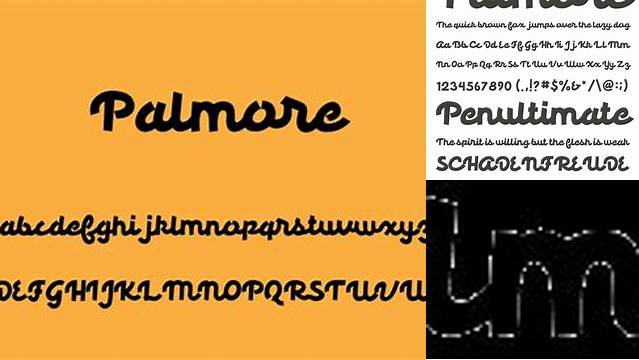
H2: Understanding Palmore Font: What Makes It Special?
Palmore Font is a typeface that's become increasingly popular in the design world. Its unique blend of elegance and readability makes it a go-to choice for designers looking to create visually appealing content. But what exactly makes Palmore Font so special? Well, let's break it down. First off, the design itself is a key factor. Palmore Font often features a clean, modern aesthetic with a touch of sophistication. Its letterforms are usually well-defined, making it easy to read both at large and small sizes. This versatility is one of its major strengths. Palmore is often used for various purposes. The visual appeal of a font is also essential. It has a distinctive personality that can range from slightly bold to delicate, allowing it to fit a broad spectrum of design projects. This adaptability makes it suitable for everything from headlines and logos to body text and editorial layouts. The nuances in its design, like the curve of a specific letter or the spacing between characters, are carefully considered to create a harmonious and balanced appearance. Furthermore, Palmore Font is often praised for its legibility. In today's fast-paced world, where content consumption happens across multiple devices and platforms, the ability to read text quickly and comfortably is paramount. Palmore Font meets this need with its well-defined characters and spacing, ensuring that your message is communicated clearly, regardless of the medium. The characteristics of Palmore Font include its adaptability, visual appeal, and legibility. Also, it has a distinctive personality.
Palmore Font's adaptability makes it suitable for everything from headlines and logos to body text and editorial layouts. The nuances in its design, like the curve of a specific letter or the spacing between characters, are carefully considered to create a harmonious and balanced appearance. Palmore Font is often praised for its legibility. The characteristics of Palmore Font include its adaptability, visual appeal, and legibility. This will ensure your message is communicated clearly. Palmore is a typeface that's become increasingly popular in the design world. Its unique blend of elegance and readability makes it a go-to choice for designers looking to create visually appealing content. Its letterforms are usually well-defined, making it easy to read both at large and small sizes. This versatility is one of its major strengths. The visual appeal of a font is also essential. It has a distinctive personality that can range from slightly bold to delicate, allowing it to fit a broad spectrum of design projects.
H3: Palmore Font's Design and Aesthetics
When we dive deeper into the design of Palmore Font, you'll find that it's not just a font; it's a work of art. The creators of this font have paid meticulous attention to every detail, resulting in a typeface that is both visually stunning and highly functional. The aesthetics of Palmore Font are rooted in a blend of modern and classic design principles. The font's design often features clean lines, balanced proportions, and a sophisticated overall look. This means that each character is carefully crafted to harmonize with the others, creating a cohesive and pleasing visual experience. The choice of design elements, such as the curves, angles, and weight of each letter, contributes to the font's unique personality. One of the key elements of Palmore Font's aesthetics is its legibility. The font designers understand that the primary purpose of a typeface is to communicate effectively. So, every aspect of the font, from the height of the ascenders and descenders to the spacing between letters, is optimized for ease of reading. This makes Palmore Font an excellent choice for both display and body text. The font is designed to be visually engaging without being overwhelming, allowing the content to shine through. Another aspect of Palmore Font's design is its versatility. It can be adapted to various design projects, from branding and marketing materials to website design and print publications. Its clean and modern aesthetic makes it suitable for a wide range of contexts, while its sophisticated touch adds a touch of elegance. Palmore Font often comes in different weights and styles, adding to its versatility. You can find variations that are bold, italic, or condensed, allowing you to customize the font to match your design's needs. This flexibility makes Palmore Font a valuable asset for any designer. The attention to detail, legibility, and versatility contribute to the overall design and aesthetic.